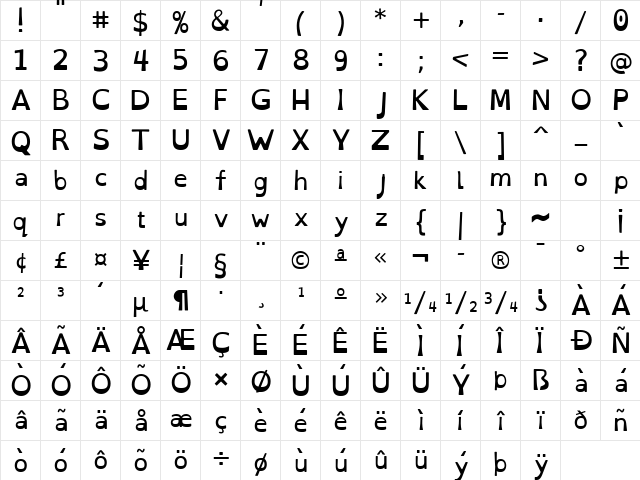
OpenDyslexic 3 Regular
| Designer | Abelardo Gonzalez |
Design Context for OpenDyslexic 3 Typeface
OpenDyslexic 3 offers clean, dependable letterforms without strong stylistic allegiance, making it a practical choice for designers who need flexibility.